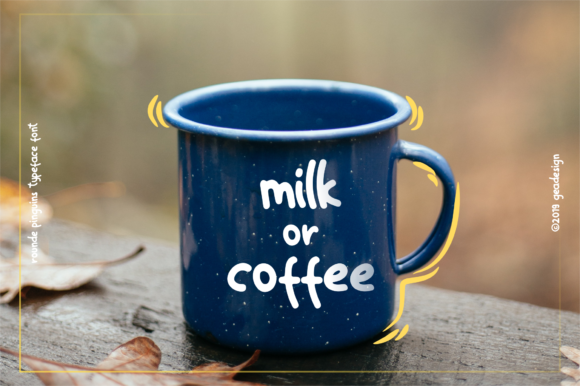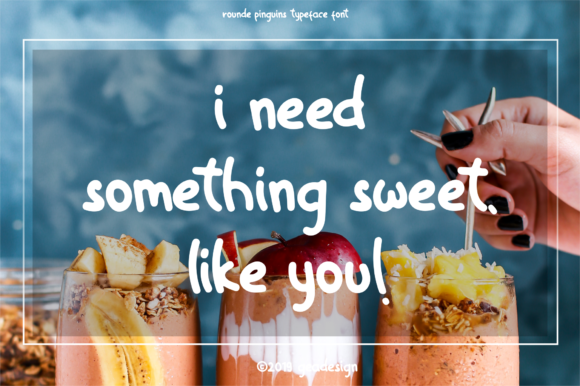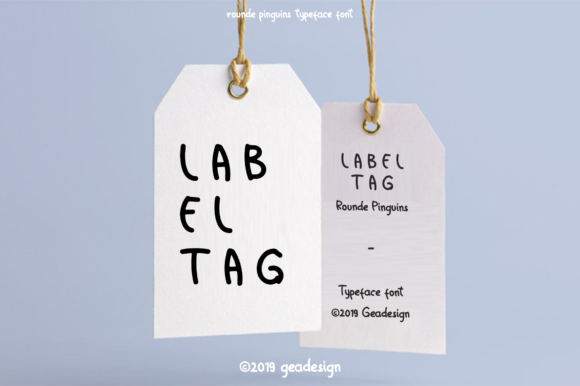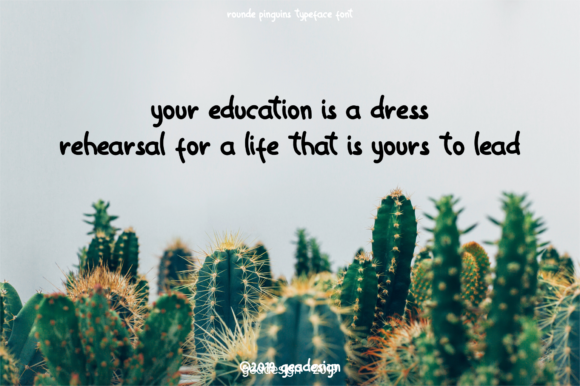
Introduction to Rounde Pinguins Font
The Rounde Pinguins is a cute handwritten font.
It has a fun and playful touch which can be used for branding, quotes, posters, and much more .